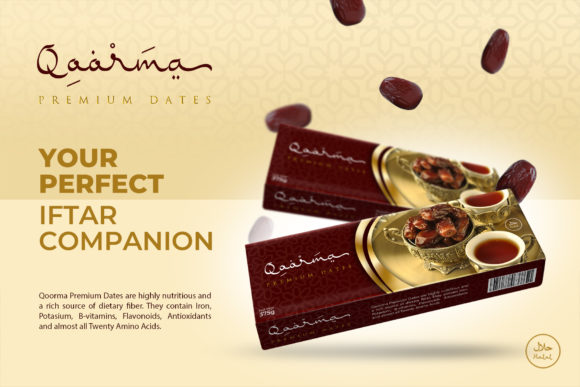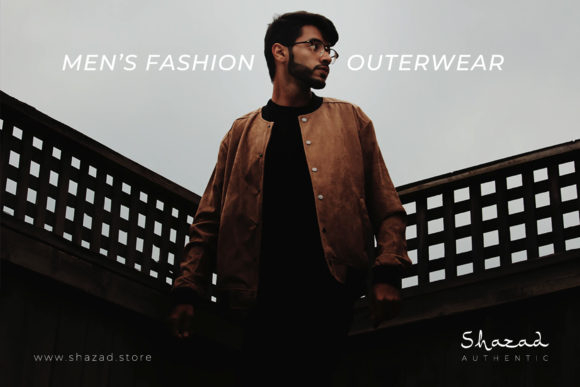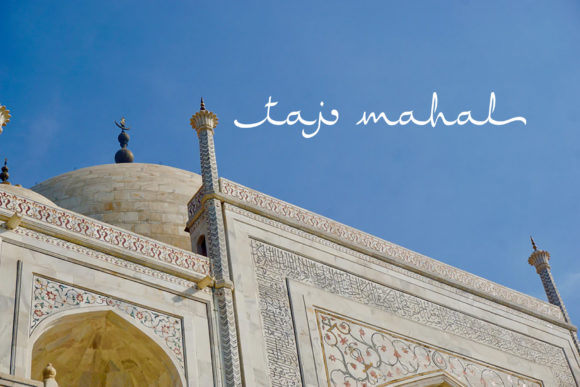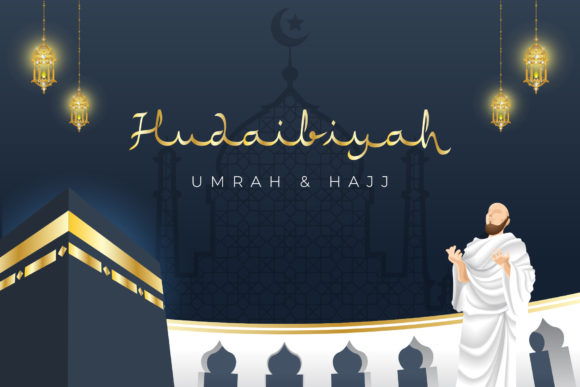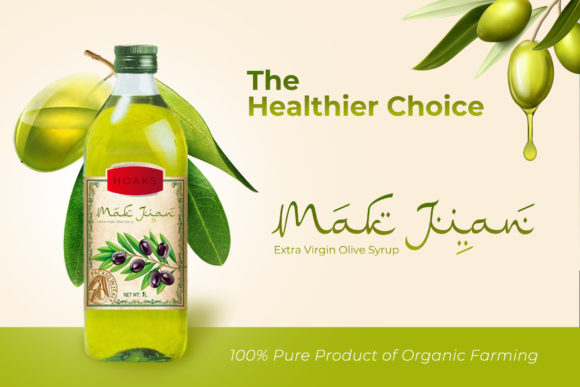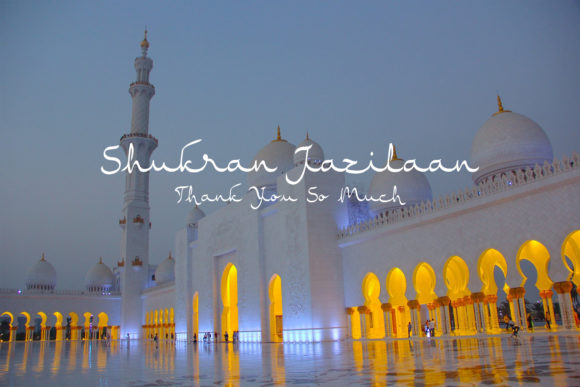
Introduction to Rasyideen Font
Have you ever been working on a creative project, pouring your heart and soul into it, only to realize that the perfect font is missing? The search for that elusive perfect font can be a daunting task, but what if I told you that you’ve found it? The Rasyideen Font is a game-changer for designers, offering a unique and flowing handwritten style that’s sure to elevate your designs to the next level.
As a valuable design resource, the Rasyideen Font boasts an elegant touch, perfect for creating high-quality designs that stand out from the crowd. With its incredibly distinct and timeless style, this font is a must-have for any designer looking to add a touch of sophistication to their projects. And the best part? It’s available for free download, making it a transparent background to your creativity.
- Unique, elegant design style, perfect for adding a touch of sophistication to any creative project
Honest Review: Rasyideen Font
I recently had the chance to work with the Rasyideen Font for a creative project and I must say, I was quite impressed. As a designer, I’m always on the lookout for high-quality design resources that can elevate my work. The Rasyideen Font definitely fits the bill.
- ✨ Beautifully crafted lettering with a unique, elegant design
- ✨ Great for titles and headings, adds a touch of sophistication to any design
- ⚠️ Not suitable for designs that require a transparent background, as the font has a solid fill
- ⚠️ Limited character set, which may not be ideal for longer blocks of text
Overall, I’m very pleased with the Rasyideen Font and would highly recommend it to designers looking for a high-quality, elegant font for their creative projects. Just be aware of its limitations and use it accordingly.
For the best results, use the Rasyideen Font with a transparent background to create a sleek and modern design. Experiment with different font sizes and styles to add visual interest to your project. You can also use the Rasyideen Font in combination with other design elements to create a unique and eye-catching design.
The Rasyideen Font is suitable for a wide range of creative projects, including social media graphics, presentations, documents, and websites. Its high-quality design makes it a popular choice among designers and creatives looking for a professional-looking font.